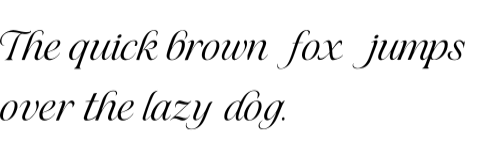
Murisa Riz Font: Adding a Touch of Romance to Your Designs
In the world of typography, fonts play a crucial role in conveying the tone and personality of a design. Among the numerous fonts available, Murisa Riz stands out as a unique and captivating serif font that can add a romantic feel to any project. In this article, we’ll explore the characteristics, applications, and benefits of using Murisa Riz font in your designs.
What is Murisa Riz Font?
Murisa Riz is an enchanting serif font that boasts a distinctive and elegant style. Its versatility makes it suitable for a wide range of applications, from greeting cards and invitations to headlines and body text. This font is designed to evoke a sense of romance and sophistication, making it an excellent choice for designers looking to add a touch of whimsy to their work.
Key Features of Murisa Riz Font
- Serif style: Murisa Riz features a classic serif design, which gives it a traditional and timeless look.
- Elegant lines: The font’s lines are smooth and flowing, adding to its romantic and sophisticated feel.
- Versatile: Murisa Riz can be used for various design projects, including print and digital materials.
- High legibility: The font’s clear and readable design ensures that your text is easy to understand, even at small sizes.
Applications of Murisa Riz Font
Murisa Riz font is suitable for a wide range of design projects, including:
1. Greeting Cards and Invitations
Murisa Riz is an excellent choice for creating romantic greeting cards, wedding invitations, and other special occasion cards. Its elegant design and serif style evoke a sense of tradition and sophistication.
2. Headlines and Titles
The font’s bold and eye-catching design makes it perfect for headlines and titles. Use Murisa Riz to create attention-grabbing headings that add a touch of romance to your designs.
3. Body Text
Murisa Riz is not only suitable for headlines but also for body text. Its clear and readable design ensures that your text is easy to understand, making it perfect for articles, blog posts, and other written content.
4. Branding and Packaging
Murisa Riz can be used to create beautiful and elegant branding materials, such as logos, business cards, and packaging designs. Its unique style will help your brand stand out and leave a lasting impression.
Benefits of Using Murisa Riz Font
Using Murisa Riz font in your designs offers several benefits, including:
1. Unique and Eye-Catching Design
Murisa Riz features a distinctive and captivating design that will set your work apart from others. Its elegant lines and serif style make it a standout font that will grab attention.
2. Versatility
Murisa Riz is a versatile font that can be used for various design projects. Its adaptability makes it an excellent addition to any designer’s font library.
3. Romantic and Sophisticated Feel
Murisa Riz is designed to evoke a sense of romance and sophistication. Using this font will add a touch of whimsy to your designs and create a lasting impression on your audience.
4. High Legibility
The font’s clear and readable design ensures that your text is easy to understand, even at small sizes. This makes Murisa Riz perfect for body text and other written content.
Tips for Using Murisa Riz Font
To get the most out of Murisa Riz font, follow these tips:
1. Pair with Other Fonts
Murisa Riz can be paired with other fonts to create a unique and visually appealing design. Experiment with different font combinations to find the perfect match.
2. Use for Headlines and Titles
Murisa Riz is perfect for headlines and titles. Use it to create attention-grabbing headings that add a touch of romance to your designs.
3. Experiment with Colors
Murisa Riz looks great in various colors. Experiment with different colors to find the perfect match for your design.
4. Pay Attention to Font Size
Murisa Riz is legible at small sizes, but it’s essential to pay attention to font size to ensure that your text is easy to read.
Murisa Riz font is a unique and captivating serif font that can add a romantic feel to any design project. Its elegant lines, versatility, and high legibility make it an excellent choice for designers looking to create beautiful and sophisticated designs. With its wide range of applications and benefits, Murisa Riz is a valuable addition to any designer’s font library.